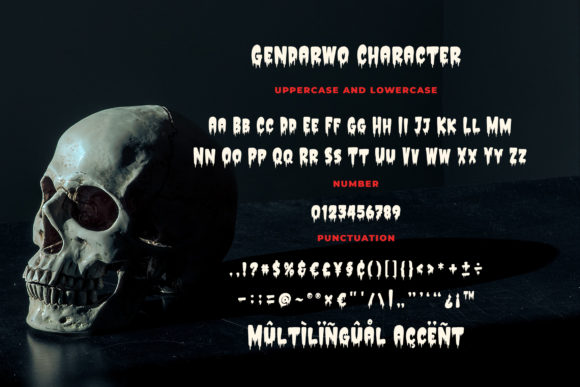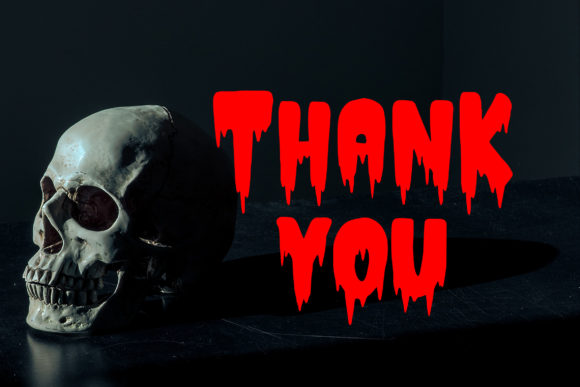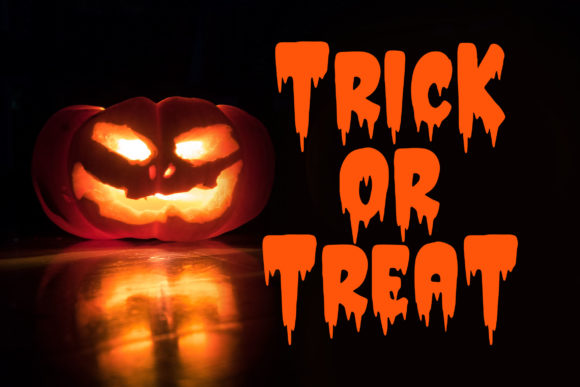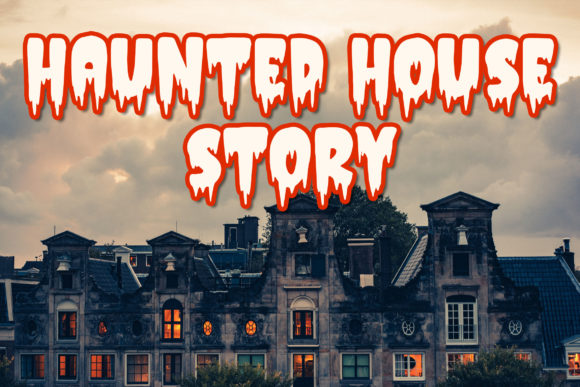
Introduction to Gendarwo Font
Gendarwo is an extremely scary and wild display font with a spooky look.
Dripping in blood, it will take any Horror or Halloween project to the next level .
Key Features of Gendarwo Font